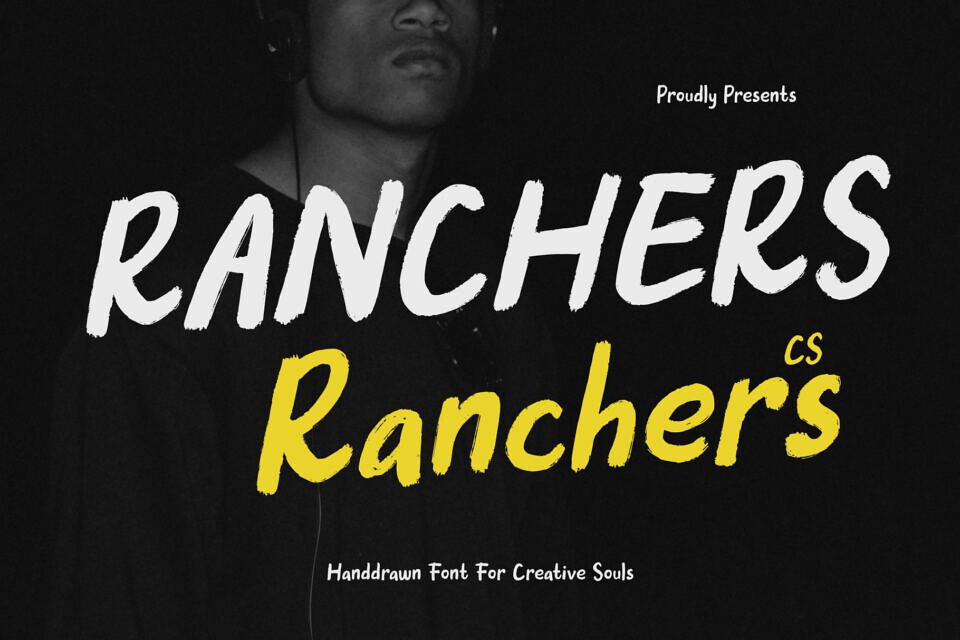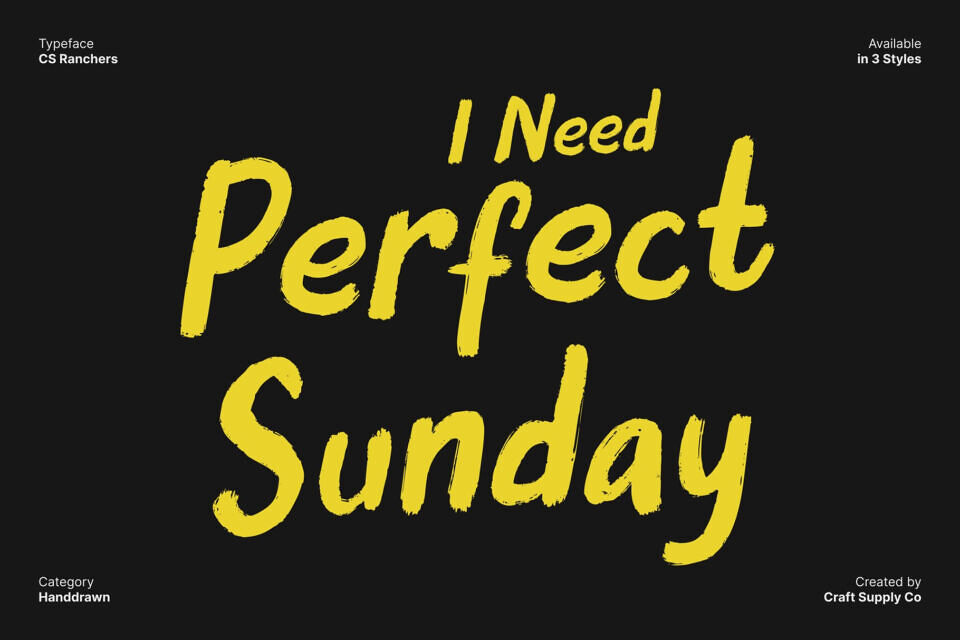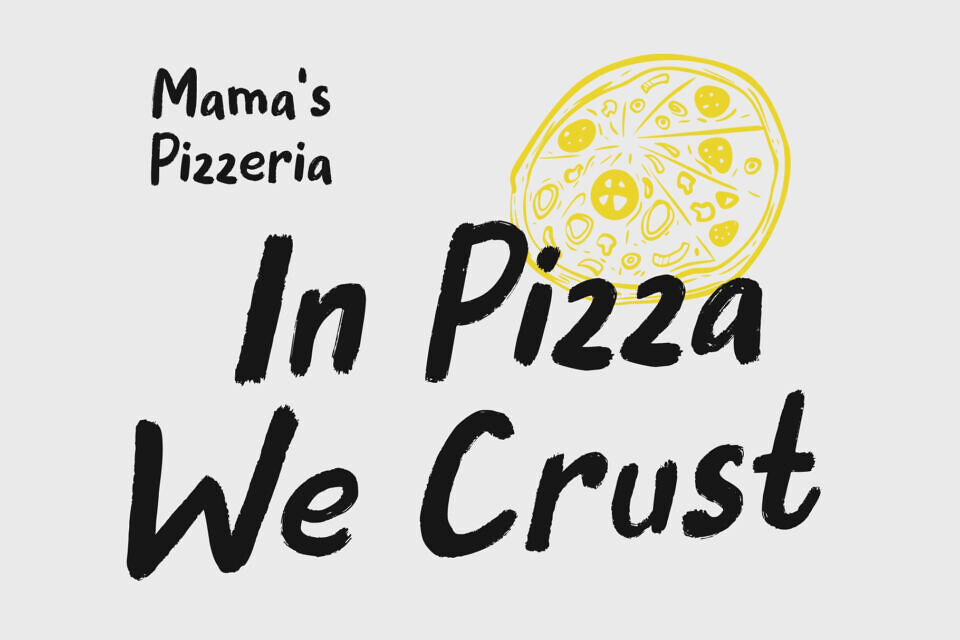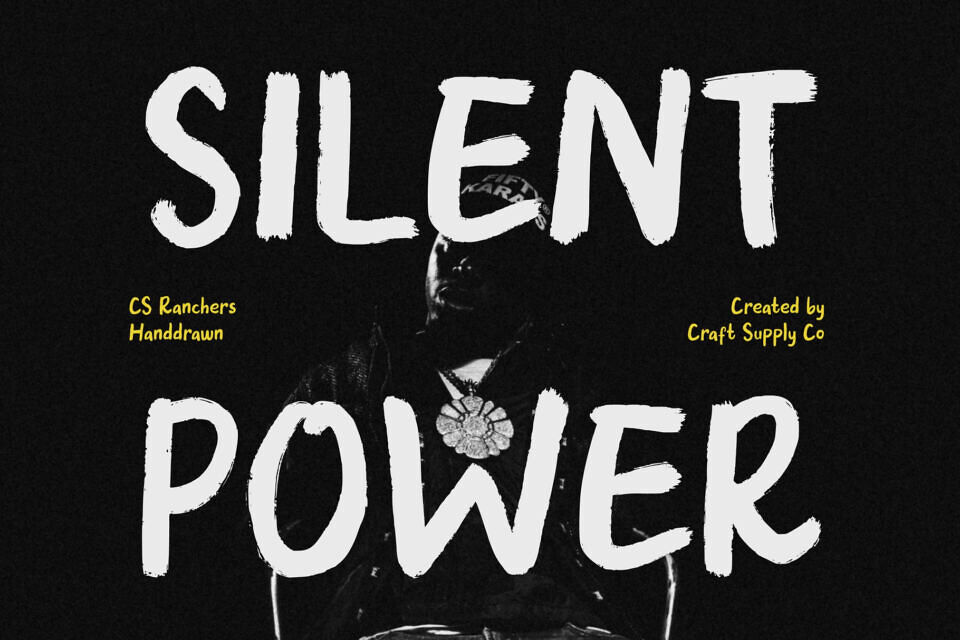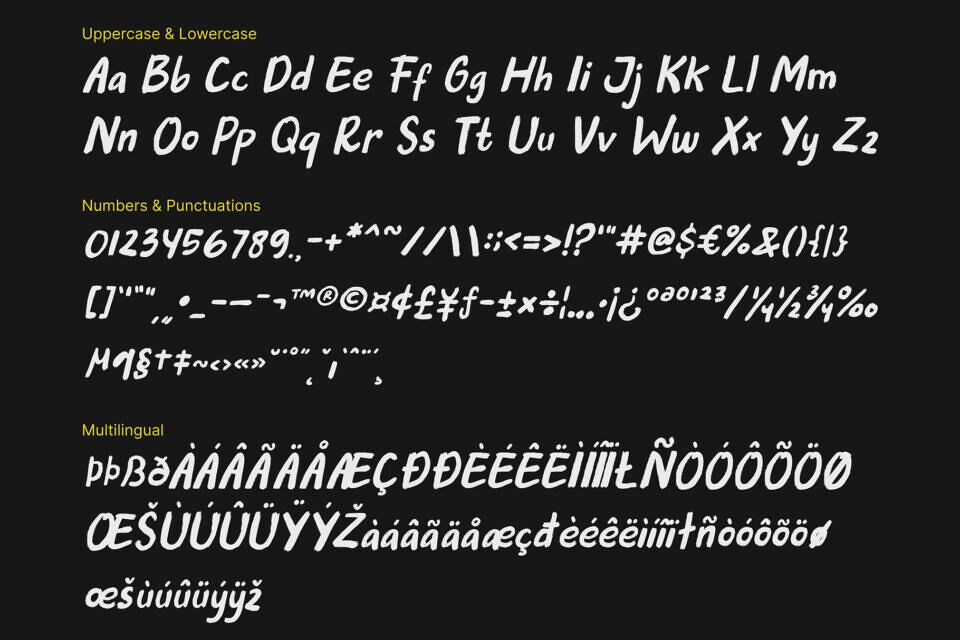
Ranchers is a Brush display font designed to capture the dynamic beauty of natural hand-brushed lettering. Its expressive strokes and textured edges convey artistic energy, giving every design a handcrafted and modern feel.
This font shines in illustrations, digital artwork, creative lettering projects, posters, and branding. Whether designing artistic posters, stylized social media graphics, or hand-brushed logo marks, this font adds personality, vibrancy, and a professional handcrafted feel. This font transforms any project into a visually captivating and expressive piece of art.